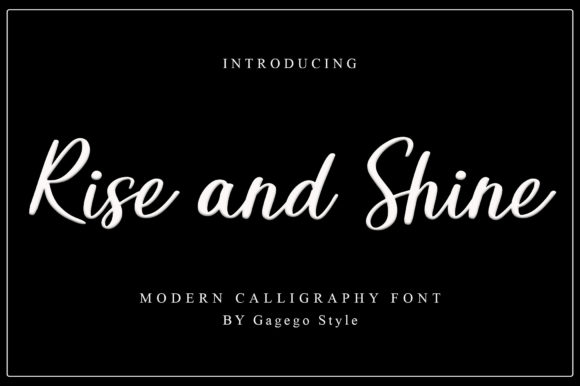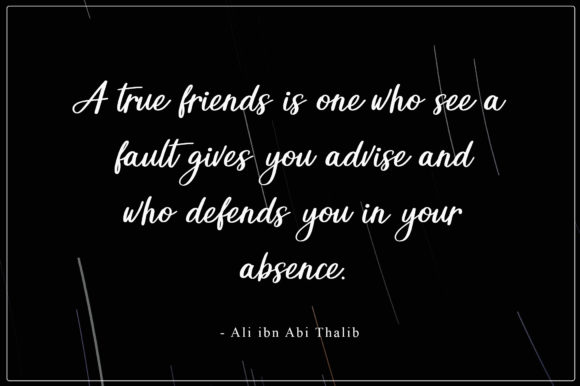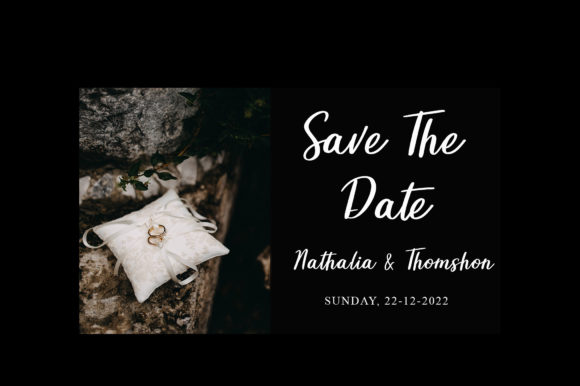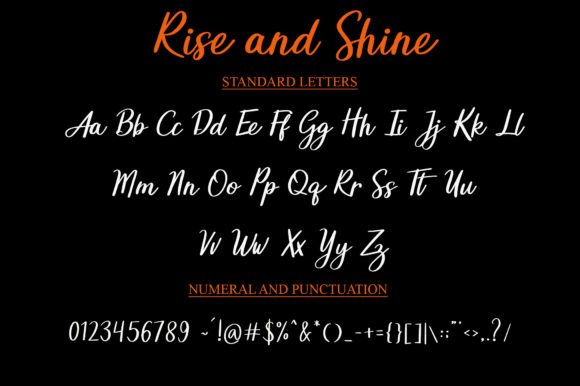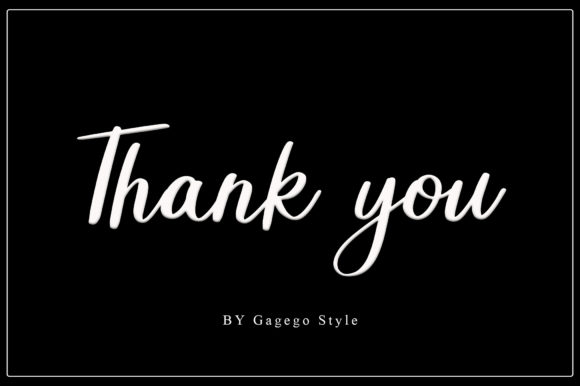
Rise and Shine Font
About Rise and Shine Font
Rise and Shine is a romantic and sweet handwritten font. It has casual yet elegant characters that make this typeface a great choice for logos, wedding invitations, headings, t-shirts, letterhead, signage, labels, and more!